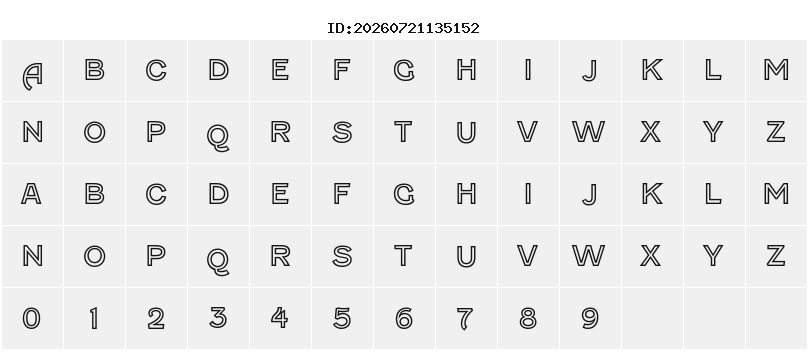
• Font Name: Fenwick Outline
• Designer: Ray Larabie
• Manufacturer: Ray Larabie
About Fenwick Outline.ttf
Fenwick Outline.ttf is a modern, elegant sans-serif font designed for ultimate readability and visual harmony. Perfect for branding, headlines, web design, and print materials.